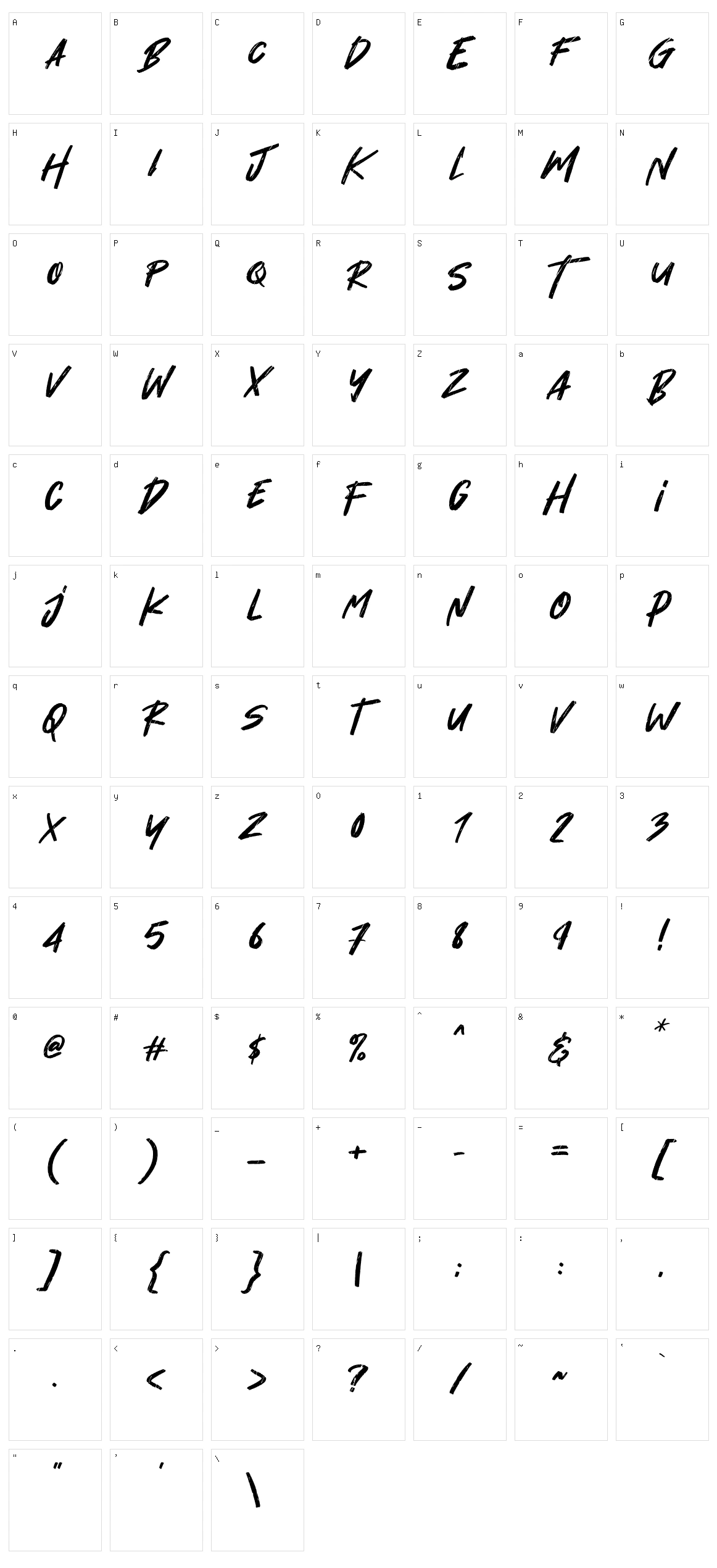
The free font Hey November is carefully designed by Khurasan, showcasing a thoughtful balance of creativity and usability and falls under the Script font style. When you download the ZIP file, it contains only 863.01 KB of font files, making it lightweight and quick to download. Please review the license details below to understand permitted usage and distribution rights. If license information is not available, we recommend using this font for personal projects only or contacting the author directly for commercial usage permissions.